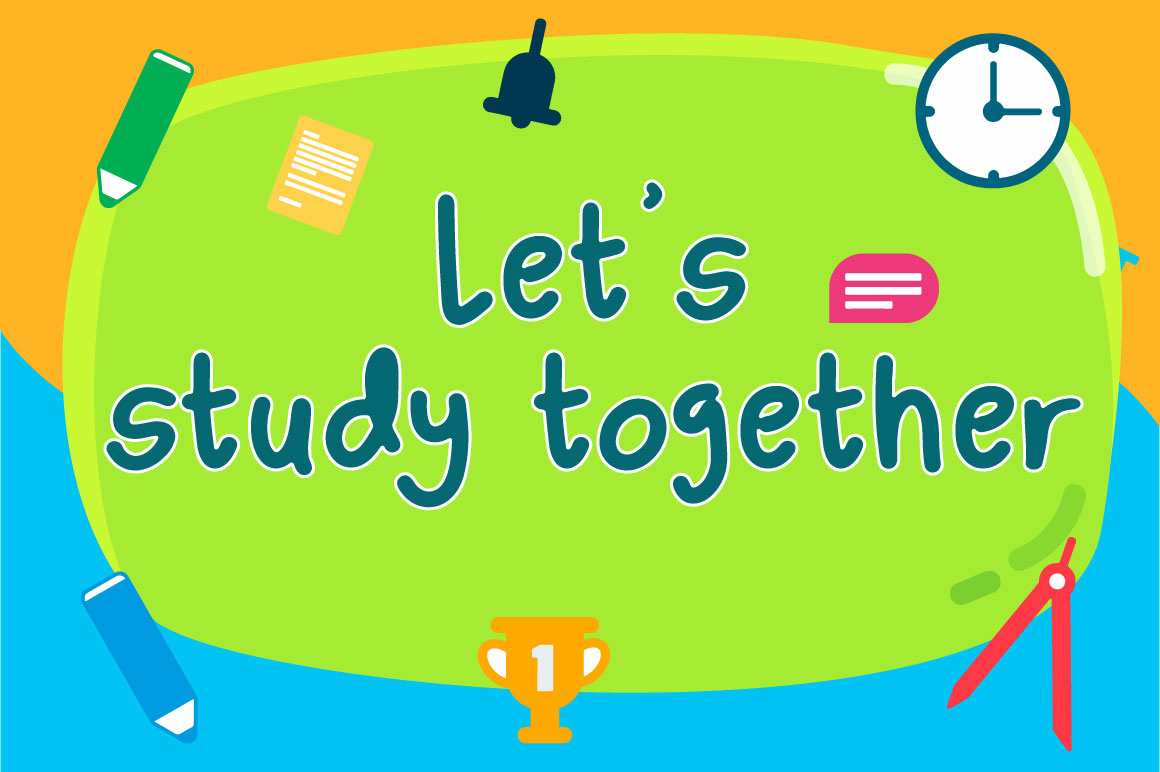
Dejuno Font
Dejuno Display Font
This is a playful and cute display font. Whether you are using it for cartoon-related designs, children’s games, quotes, titles, brand names, book covers, posters, or just any creation that requires a touch of beauty, this font is a great choice.